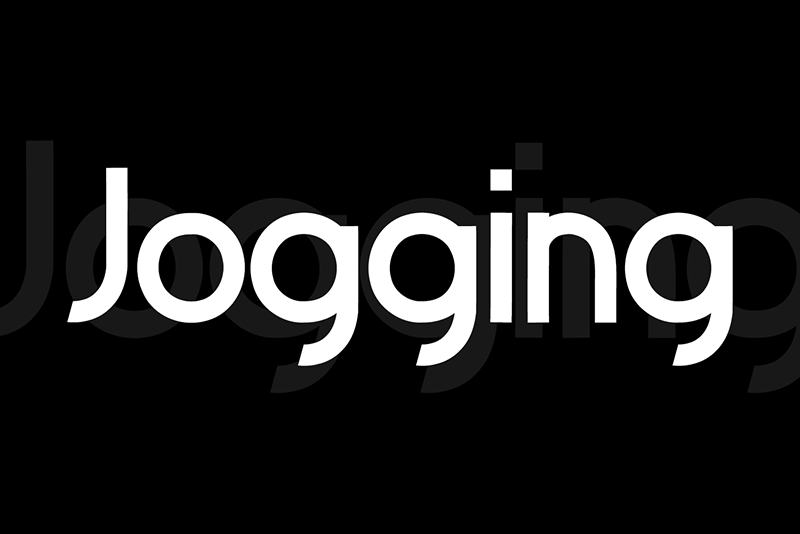
Preview and download Jogging Font. Created by Erik Supriyanto in Basic Sans serif styles with Free for personal use license.
Jogging is a minimal and neat sans serif font. It can easily be matched to a large set of projects, so add it to your creative ideas and notice how it makes them stand out! Attention : Jogging handwriting Font is prohibited to use this font for commercial purposes or for profit without the permission of the author/admin, without being known to use this font without permission, will be subject to sanctions 5x the specified price. This font is used only for demos (Demo license) If you want to use this font for commercial use please contact email: eriksupriyanto808@gmail.com or click the link below: https://www.creativefabrica.com/product/jogging-4/ref/483353/ If you want to see more other fonts, please click: https://www.creativefabrica.com/majelis-font/ref/483353/ thanks. |